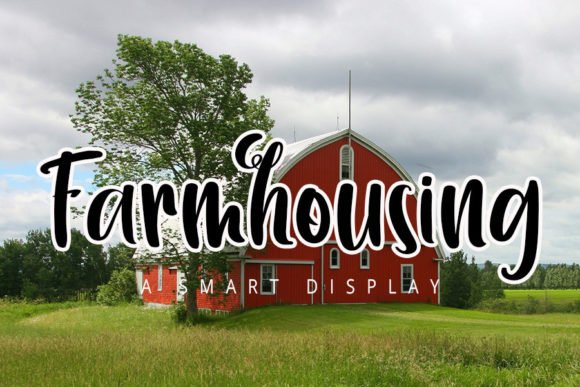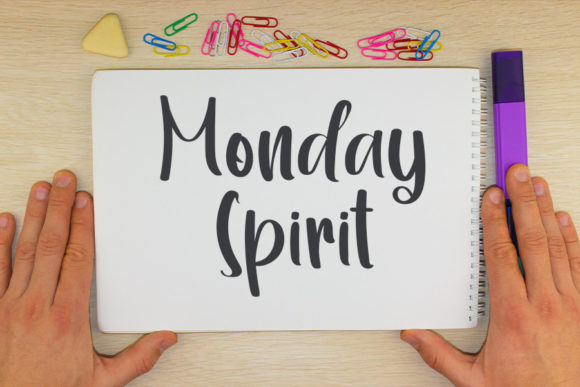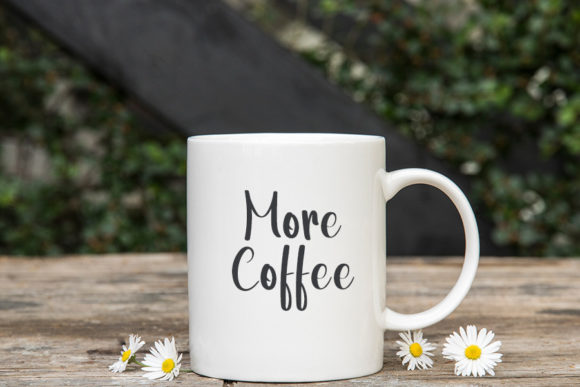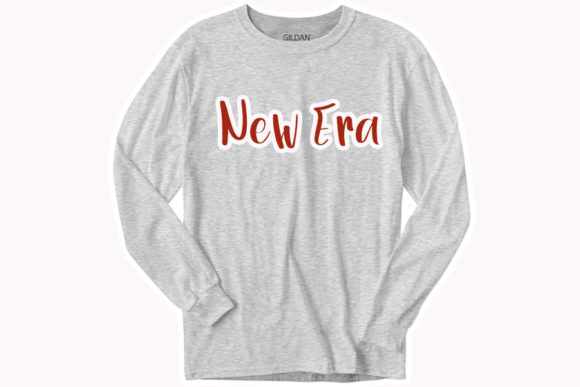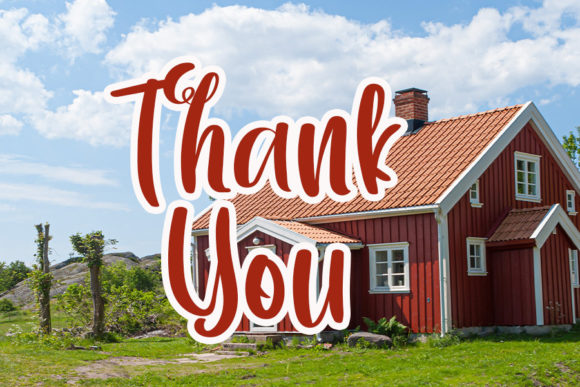
Discover the Whimsy of Farmhousing Font
Have you ever stumbled upon a font that instantly transports you back to a carefree childhood? For me, it’s a font that brings back memories of scribbling stories in my favorite notebook, surrounded by crayons and colorful pens. That font is Farmhousing, a delightful handwritten font that exudes playfulness and warmth in every single character.
Farmhousing Font is designed to bring a smile to the faces of children and adults alike, making it perfect for children’s storybooks, stationery, and games. Its friendly style and quirky charm make it an ideal choice for crafty projects that need to look approachable and inviting. As a designer, you’ll appreciate the versatility of Farmhousing Font, which can be used for a wide range of creative projects, from digital designs to print materials.
- Unique Characteristics: Farmhousing Font features a unique blend of modern and rustic elements, making it perfect for designs that require a touch of elegance and simplicity.
- Kerning and Ligatures: Farmhousing Font includes advanced kerning and ligature features, ensuring seamless text flow and enhancing the overall design aesthetic.
Designer Review: Farmhousing Font
Overall, I’d say Farmhousing Font is a unique and interesting addition to any design project. It has a certain charm that’s hard to ignore. ✨ The font’s cursive and handwritten feel makes it perfect for projects that need a personal touch, like wedding invitations, food labels, or even signage.
One of the things that stands out about Farmhousing Font is its versatility. It comes in a range of weights and styles, from light to bold, and even has some fun, decorative variants. ✨ This makes it easy to mix and match different styles to create a look that’s all your own.
- Cursive and handwritten feel that adds a personal touch
- Range of weights and styles to choose from
- Decorative variants add a fun touch
- Some letters may be difficult to read in smaller sizes due to their cursive design
- May not be suitable for projects that require a more formal or corporate look
Overall, I’d give Farmhousing Font 4 out of 5 stars. It’s a great choice for designers looking for a unique and personal touch, but it may not be the best fit for every project. ⚠️ With a little creativity and experimentation, though, it’s definitely worth considering.
The Farmhousing Font is ideal for:
- Designing rustic or country-themed graphics.
- Creating invitations or announcements for outdoor events.
- Developing branding materials for agricultural or rural businesses.